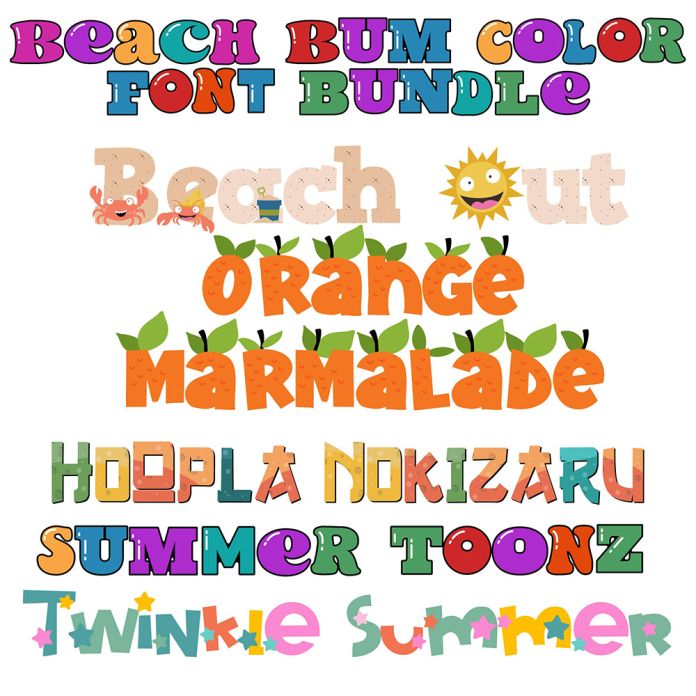
This full-color font bundle features five font full-color alphabets, each with an emphasis on the beach and summer! These fonts works best for titles, displays, posters and more. Please note color fonts will show as black in non compatible programs. These font types are compatible with Silhouette Studio.